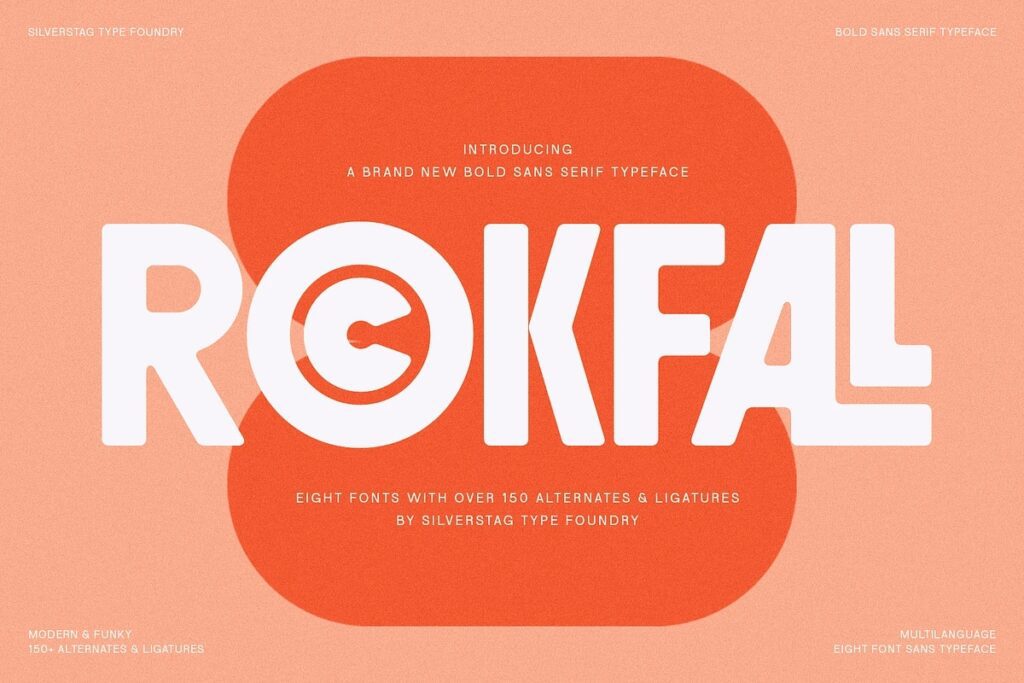
Introducing Rockfall: A Bold Retro Typeface with a Rebellious Edge
If you’re looking to infuse your designs with the raw energy of the 70s, Rockfall Bold Ligature Typeface is your go-to solution. Inspired by iconic rock posters and vintage signage, this bold retro typeface commands attention and brings a sense of nostalgia and rebellion to your creative projects. Whether you’re working on a music festival poster, a retro-themed website, or bold branding materials, Rockfall delivers the punch of personality you’re after.
Why Choose Rockfall Typeface?
Rockfall isn’t just a regular retro font—it’s packed with versatility and features that give you unparalleled creative control. With 150 alternate letters and ligatures, along with 8 distinct font styles (including Regular, Rounded, and Outlined versions in both Regular and Italics), this typeface allows you to mix and match styles to create unique designs. Whether you’re crafting bold headlines, logos, or marketing materials, Rockfall brings your retro design ideas to life.
Key Features of Rockfall Typeface:
Bold Retro Aesthetic: Perfect for capturing the rebellious spirit of the 70s in your designs.
Multiple Versions: Comes in Regular, Rounded, Outlined, and Italic styles for endless creative combinations.
Extensive Language Support: Supports over 90 languages, making it versatile for global use.
150 Alternate Letters & Ligatures: Create custom, unique typography with ease.
Perfect for Various Projects: Ideal for music posters, apparel designs, logos, marketing materials, and more.
Best Uses for Rockfall Typeface:
Music Industry: Design band posters, album covers, and concert merchandise that channel the rock ‘n’ roll era.
Apparel and Merchandise: Rockfall’s bold lines make it perfect for vintage t-shirt designs, bold logos, and slogans.
Branding & Marketing: Create logos, social media graphics, and packaging with a retro edge.
Print & Digital Media: Use for magazine layouts, book covers, or digital advertising that stands out.
Personal Projects: Perfect for invitations, greeting cards, or scrapbooking with a nostalgic flair.